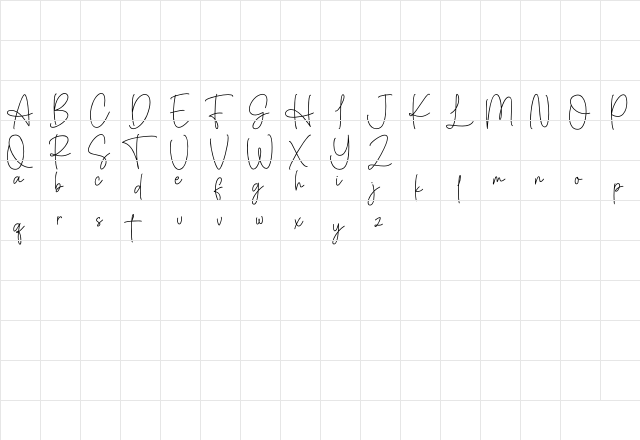
Northampton Regular
| Designer | Jefri Dwi Alfatah |
Design Context for Northampton Typeface
Northampton is a composed and adaptable typeface that performs quietly and consistently across a wide range of design contexts.